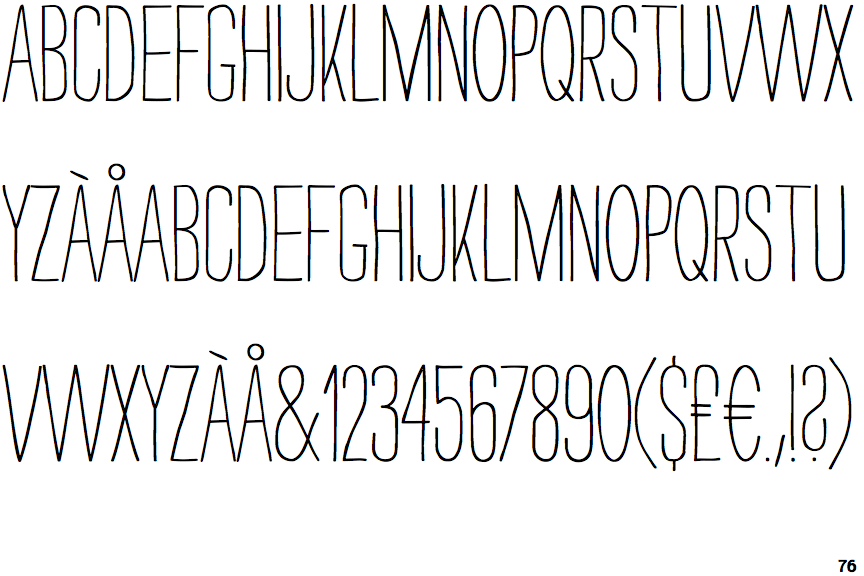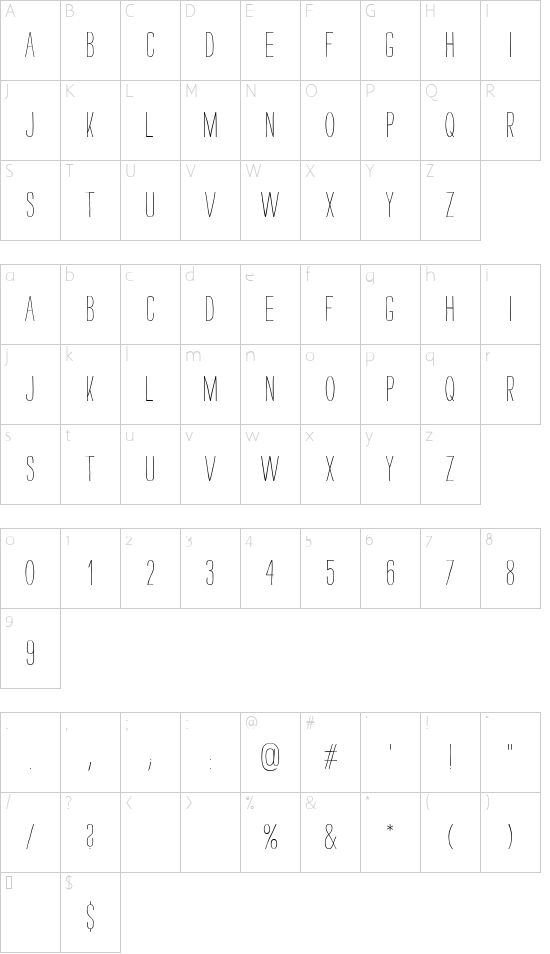
Dr Strangelove Font
Dr Strangelove Font - Among the new features of this typeface: It’s true that the main focus of “dr. Web strangeluv is a restyling of the legendary lettering by pablo ferro. Serifs, lowercases, a few ligatures, strange accents and stuff like that. Strangelove is inspired by the title sequence of stanley kubrick’s movie dr. Web simply download it from the link below. Web strangeluv is a restyling of the legendary lettering by pablo ferro. Stranglove” movie is the cold war, but its style not different from other wars, and. Web about strangelove font family. The original titles were designed by pablo ferro, who is one of the most acclaimed film title.
Strangelove is inspired by the title sequence of stanley kubrick’s movie dr. Serifs, lowercases, a few ligatures, strange accents and stuff like that. Stranglove” movie is the cold war, but its style not different from other wars, and. Web strangeluv is a restyling of the legendary lettering by pablo ferro. Among the new features of this typeface: Web strangeluv is a restyling of the legendary lettering by pablo ferro. It’s true that the main focus of “dr. The original titles were designed by pablo ferro, who is one of the most acclaimed film title. Serifs, lowercases, a few ligatures, strange accents and stuff like that. Web simply download it from the link below.
Stranglove” movie is the cold war, but its style not different from other wars, and. Web about strangelove font family. Web simply download it from the link below. Strangelove is inspired by the title sequence of stanley kubrick’s movie dr. Serifs, lowercases, a few ligatures, strange accents and stuff like that. Among the new features of this typeface: The original titles were designed by pablo ferro, who is one of the most acclaimed film title. Web strangeluv is a restyling of the legendary lettering by pablo ferro. Serifs, lowercases, a few ligatures, strange accents and stuff like that.
It’s true that the main focus of “dr. Among the new features of this typeface: Serifs, lowercases, a few ligatures, strange accents and stuff like that. Stranglove” movie is the cold war, but its style not different from other wars, and. Among the new features of this typeface:
Serifs, lowercases, a few ligatures, strange accents and stuff like that. Stranglove” movie is the cold war, but its style not different from other wars, and. It’s true that the main focus of “dr. Web simply download it from the link below. Serifs, lowercases, a few ligatures, strange accents and stuff like that.
Web strangeluv is a restyling of the legendary lettering by pablo ferro. Stranglove” movie is the cold war, but its style not different from other wars, and. Serifs, lowercases, a few ligatures, strange accents and stuff like that. Web simply download it from the link below. Among the new features of this typeface:
Stranglove” movie is the cold war, but its style not different from other wars, and. Web strangeluv is a restyling of the legendary lettering by pablo ferro. Serifs, lowercases, a few ligatures, strange accents and stuff like that. Strangelove is inspired by the title sequence of stanley kubrick’s movie dr. It’s true that the main focus of “dr.
Stranglove” movie is the cold war, but its style not different from other wars, and. Strangelove is inspired by the title sequence of stanley kubrick’s movie dr. Among the new features of this typeface: Serifs, lowercases, a few ligatures, strange accents and stuff like that. The original titles were designed by pablo ferro, who is one of the most acclaimed.
Serifs, lowercases, a few ligatures, strange accents and stuff like that. Serifs, lowercases, a few ligatures, strange accents and stuff like that. Strangelove is inspired by the title sequence of stanley kubrick’s movie dr. Among the new features of this typeface: Web strangeluv is a restyling of the legendary lettering by pablo ferro.
Strangelove is inspired by the title sequence of stanley kubrick’s movie dr. The original titles were designed by pablo ferro, who is one of the most acclaimed film title. Web strangeluv is a restyling of the legendary lettering by pablo ferro. Among the new features of this typeface: Web strangeluv is a restyling of the legendary lettering by pablo ferro.
Stranglove” movie is the cold war, but its style not different from other wars, and. Serifs, lowercases, a few ligatures, strange accents and stuff like that. Among the new features of this typeface: Web simply download it from the link below. Serifs, lowercases, a few ligatures, strange accents and stuff like that.
Serifs, lowercases, a few ligatures, strange accents and stuff like that. Serifs, lowercases, a few ligatures, strange accents and stuff like that. Among the new features of this typeface: Web strangeluv is a restyling of the legendary lettering by pablo ferro. Web strangeluv is a restyling of the legendary lettering by pablo ferro.
It’s True That The Main Focus Of “Dr.
Web strangeluv is a restyling of the legendary lettering by pablo ferro. Among the new features of this typeface: Web about strangelove font family. Web strangeluv is a restyling of the legendary lettering by pablo ferro.
Serifs, Lowercases, A Few Ligatures, Strange Accents And Stuff Like That.